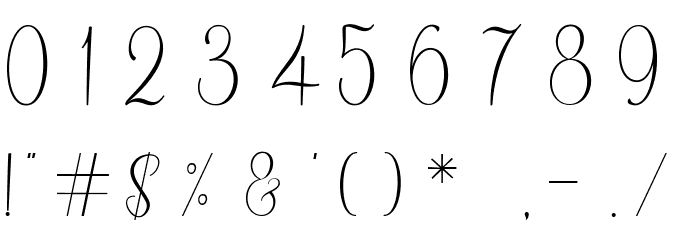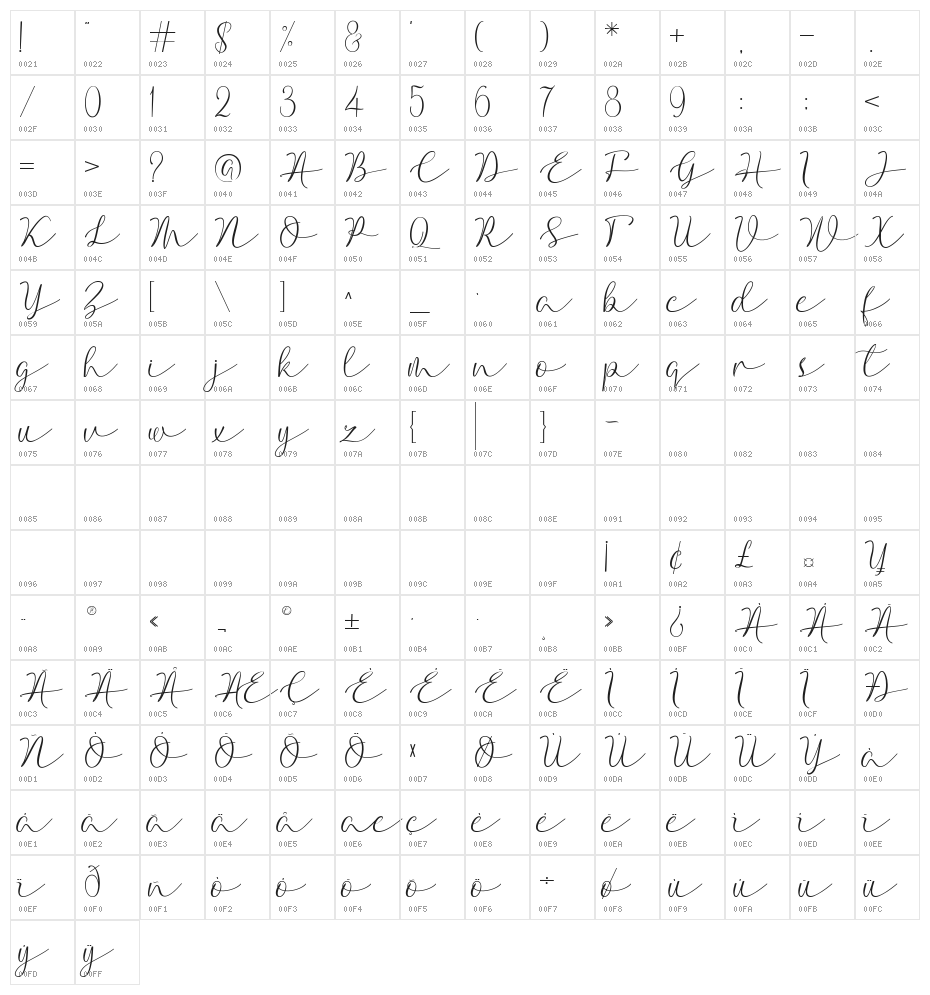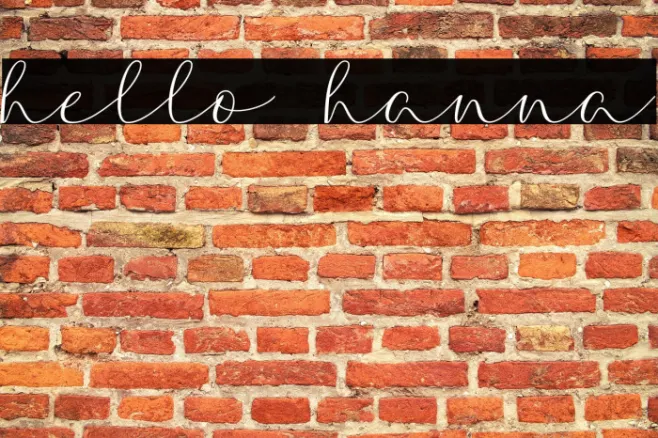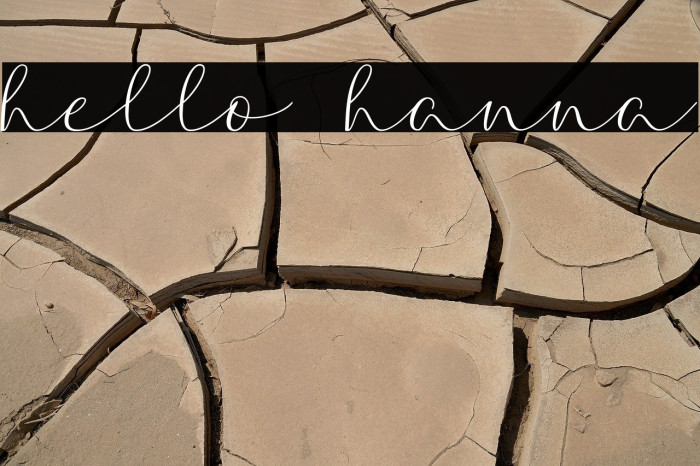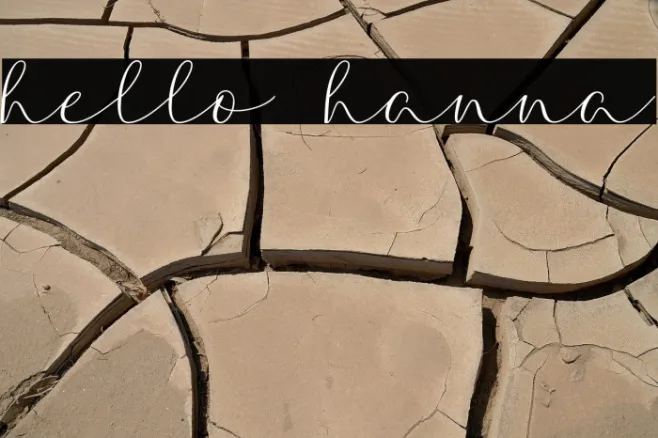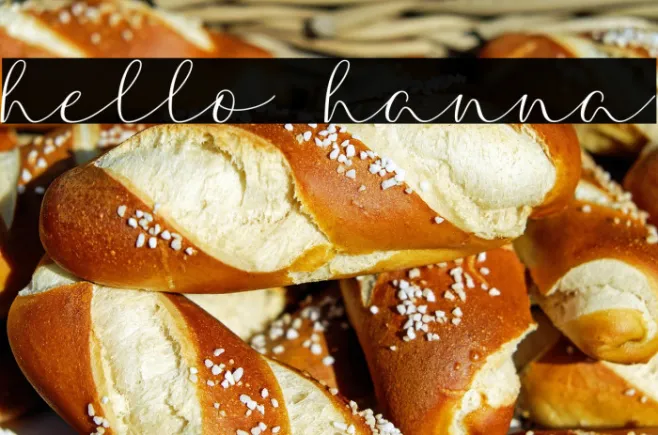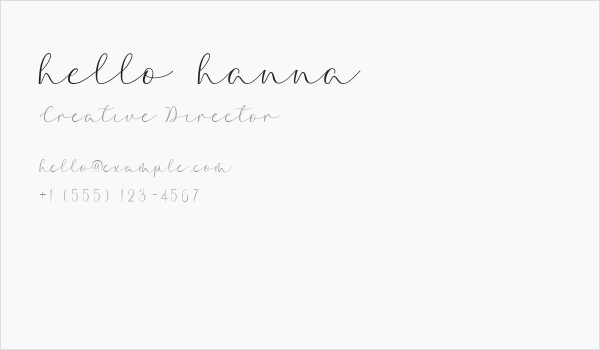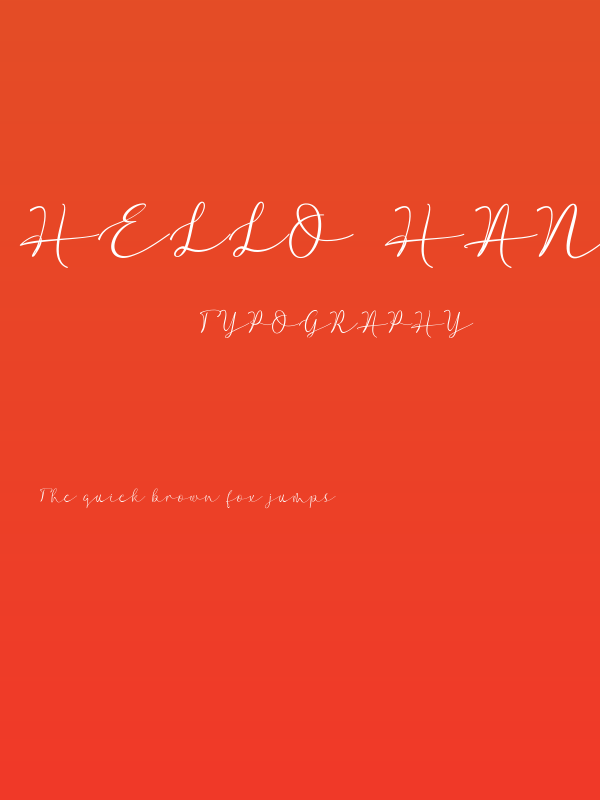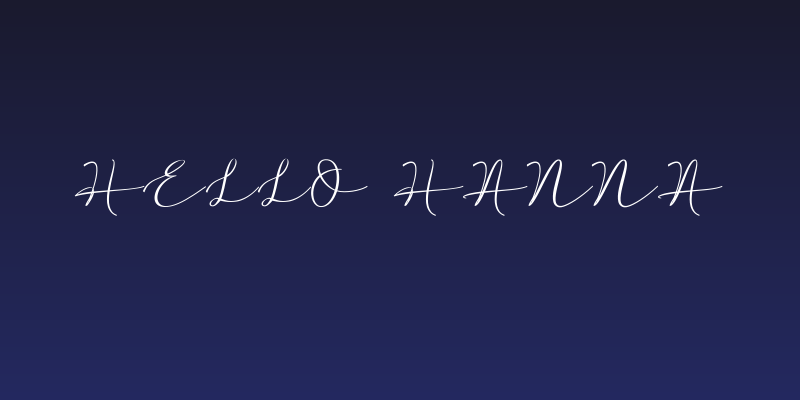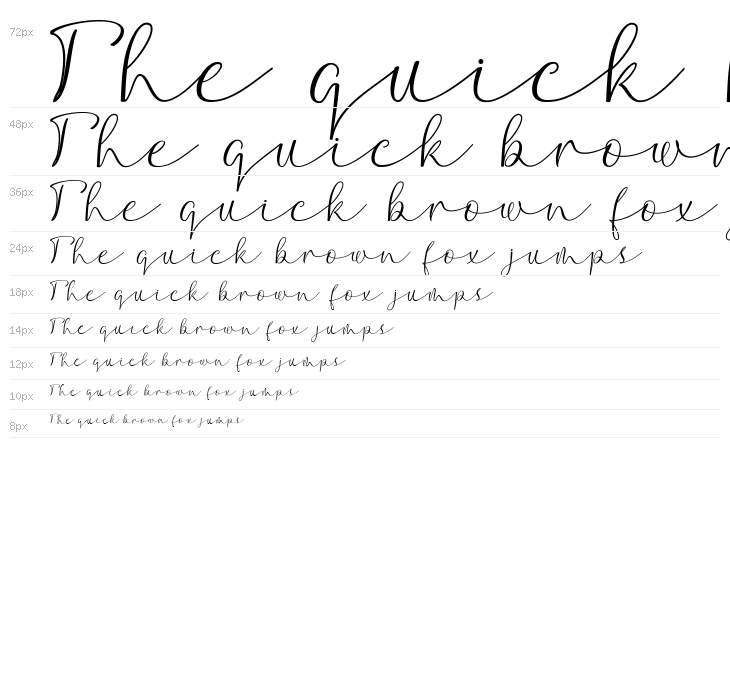
hello hanna Font
hello hanna Description
This elegant script font features a flowing, cursive style with delicate, thin strokes that convey a sense of sophistication and grace. The uppercase letters are slightly more ornate, with sweeping lines and gentle curves, while the lowercase letters maintain a consistent, fluid motion. The numerals are distinct yet harmonious with the overall style, offering a refined appearance. Special characters are thoughtfully designed to complement the script, enhancing its versatility. This font is ideal for projects that require a touch of elegance and personal flair.
| Overall Style | Elegant, Sophisticated |
| Proposed Projects | Ideal for wedding invitations, greeting cards, personal branding, and elegant packaging design. |